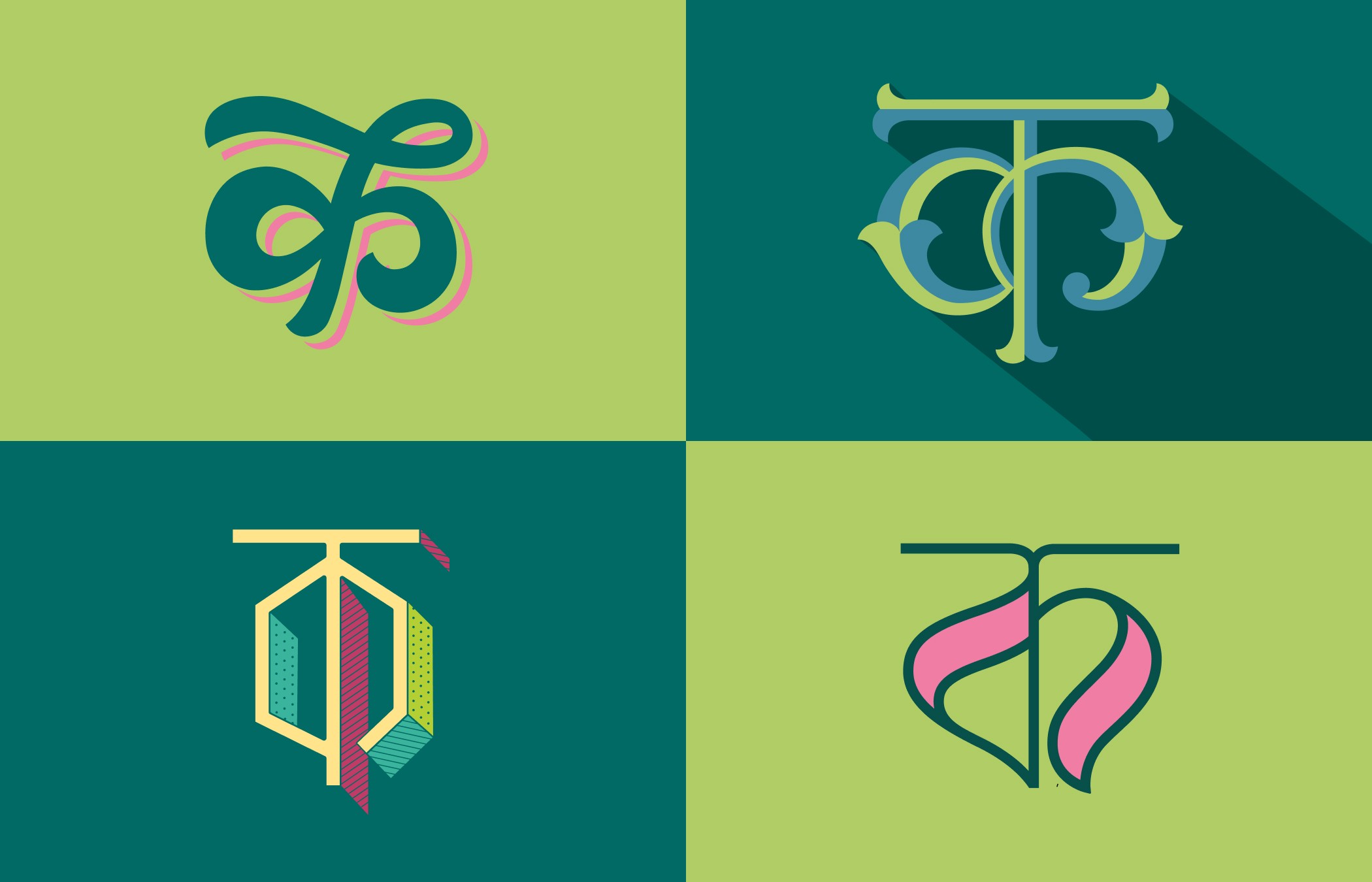
Devanagari Drop Caps
Lettering
Drop caps and decorative initials are typographic elements traditionally associated with Latin scripts. Through this project, I explored what they could look like in Devanagari. The process, which started with calligraphy, helped me develop a deeper understanding of the letterforms and allowed me to delve into the beauty and versatility of Devanagari script.
I explored multiple variations of the letter क (first letter of the Hindi alphabet) to come up with its unique forms and expressions. From this exploration, I selected four distinct forms and expanded them into a complete set of letters. Finally, these letters were further stylised and treated in different ways to create a series of drop caps.